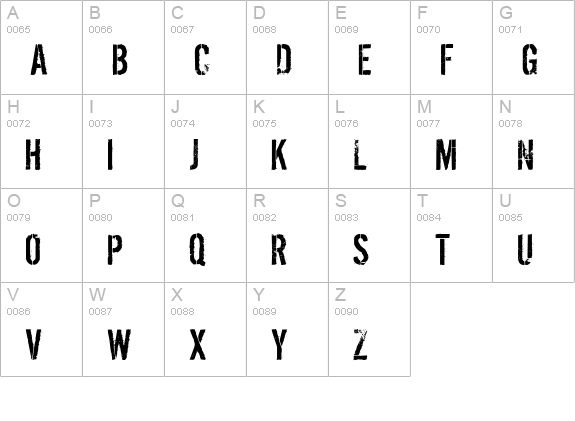
Dirty Ego Font Details
Introducing Dirty Ego font, a bold and stylish typeface that exudes confidence and attitude. This unique font is perfect for those who dare to stand out and make a statement with their designs. With its edgy and grungy appearance, Dirty Ego adds a rebellious touch to any project. Designed with meticulous attention to detail, every letter of Dirty Ego font carries a sense of raw energy and untamed individuality. Its irregular and distressed strokes give it a worn-out look, as if it has been through countless adventures. This font is the perfect choice for projects that require a touch of urban grit and boldness. One of the best things about Dirty Ego font is that it is free. Yes, you read that right! You can freely download this font at FontsMarket.com. Whether you are a graphic designer, a blogger, or simply a creative individual looking to add some edge to your work, Dirty Ego font is readily available to enhance your projects. Whether you use it for posters, logos, merchandise, or social media graphics, Dirty Ego font will make a lasting impression. Its unique aesthetic will captivate viewers and bring your design to life. Be it a music festival, a streetwear brand, or a tattoo parlor, this font is the perfect choice to convey a sense of rebellion and authenticity. So, don't miss out on this opportunity to add Dirty Ego font to your font collection. Download it for free at FontsMarket.com and let your creativity run wild. Unleash your dirty ego and make a statement with this bold and captivating typeface.